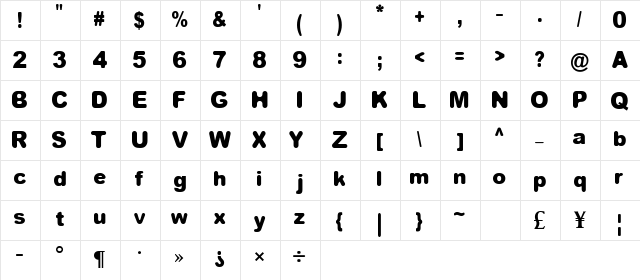
Equivalent Bold
Design Context for Equivalent Typeface
Equivalent takes a measured approach to typography — its balanced proportions and neutral character make it a reliable workhorse for both digital and print work. Its bold stroke weight gives it real presence on the page.
Pro Tip: Use Equivalent in both headline and body roles to test its range before committing to a single application.